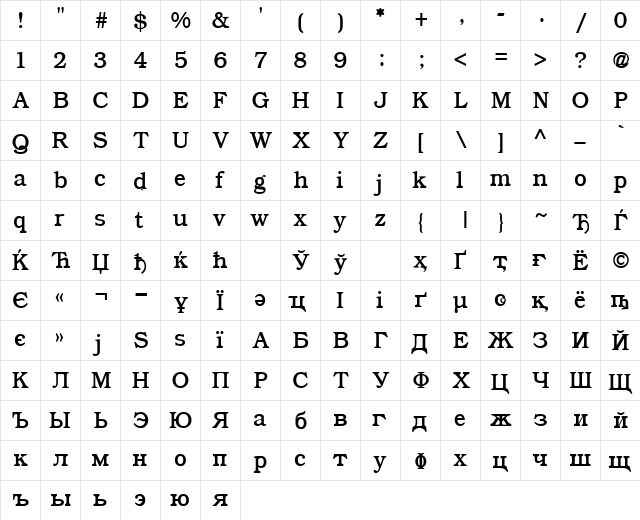
CyrCauc Medium
Design Context for CyrCauc Typeface
CyrCauc takes a measured approach to typography — its balanced proportions and neutral character make it a reliable workhorse for both digital and print work.